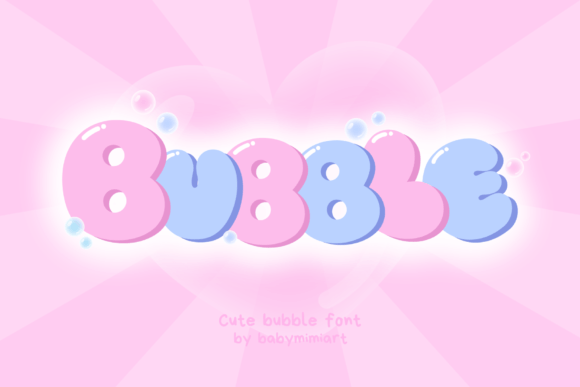
Have you ever sat down at your desk, staring blankly at a blank page, searching for that one spark of inspiration to bring your design to life? For many of us, it’s the little things that can make all the difference – a unique font, a vibrant color palette, or a playful illustration. For me, it’s the thrill of discovering a new font that can instantly elevate a project from ordinary to extraordinary.
Enter the adorable Bubble Font, a delightful typographic treasure that’s sure to add a playful touch to any design. With its bubbly and rounded letters, this charming font creates a cute and cheerful vibe that’s perfect for a wide range of projects, from children’s books and logos to greeting cards and more.
Bubble Font Key Features
- Font Style: Unique, rounded font with a bubbly appearance, ideal for creating playful and whimsical designs.
- Color Palette: Available in a range of colors, including bold, pastel, and metallic shades, allowing designers to customize the font to suit their needs.
Bubble Font Review
As a designer, I was excited to dive into the world of Bubble Font, a playful and whimsical font that promises to add a touch of fun to any design project. ✨
- Unique and eye-catching style: The bubble-like design elements add a quirky charm to any text, making it perfect for branding, social media, and other creative projects.
- Customization options: While limited, the font does offer some basic customization options, such as size and color changes, to help you tailor it to your design needs.
- Legibility: Despite its playful nature, the font is surprisingly legible, making it suitable for a wide range of applications.
However, there are also some limitations:
- ⚠️ Limited font sizes: The font’s unique design elements can become overwhelming at larger font sizes, making it less suitable for headings or titles.
Overall, I think Bubble Font is a great addition to any designer’s toolkit, but it’s essential to use it judiciously and consider its limitations. With some careful planning and experimentation, you can create some truly unique and engaging designs that showcase the font’s playful charm.
Getting the Most Out of Bubble Font
Some tips for getting the most out of Bubble Font include:
- Using it in conjunction with other creative elements, such as graphics and illustrations.
- Experimenting with different font sizes and colors to create visual interest.
- Using it to add a playful or whimsical touch to your designs.
Bubble Font is commonly used in:
- Children’s educational materials and games.
- Party invitations and decorations.
- Advertising and marketing materials.
Great Vibes is a modern, elegant script font that exudes a sense of sophistication and style. It’s perfect for creating a luxurious and high-end look, making it ideal for branding, packaging, and advertising.
Compared to Bubble Font, Great Vibes has a more refined and elegant look, while Bubble Font has a playful and whimsical feel. Great Vibes is better suited for formal and high-end applications, whereas Bubble Font is ideal for casual and creative projects.
Q: Can I customize Bubble Font to fit my specific design needs?
Yes, Bubble Font is a highly customizable font. You can adjust various font settings, such as font size, line height, and letter spacing, to fit your specific design needs. Additionally, you can use font manipulation tools, such as font editors or scripting languages, to create custom font variations or modifications. However, be aware that excessive customization may compromise the font’s original design intent and legibility.